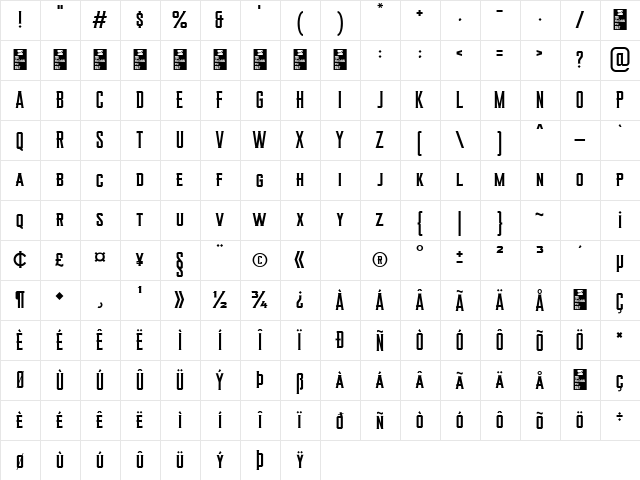
RODENBERG DEMO Regular
| Foundry | ZEALAB FONTS DIVISION |
| Designer | REZA RASENDA |
Design Context for RODENBERG DEMO Typeface
RODENBERG DEMO is a composed and adaptable typeface that performs quietly and consistently across a wide range of design contexts.